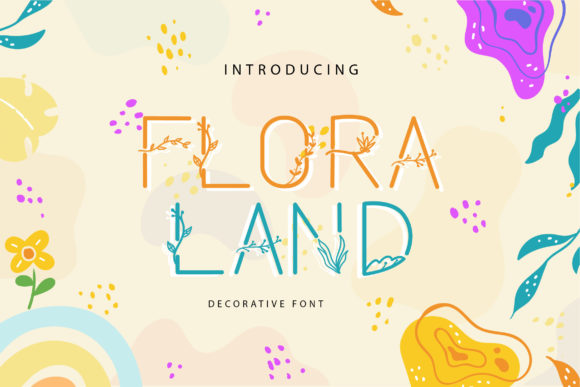
Feel the elegance and grace of Floraland Font, a decorative masterpiece that captivates with its slender lines and stylish flair. Born from the creative mind of Vunira, this thin lettered font is a visual symphony that dances across your designs, leaving a trail of beauty and sophistication.
As a decorative font, Floraland Font transcends the ordinary, becoming an artistic expression that elevates your designs to new heights. Its delicate strokes and flowing curves create a sense of harmony and balance, drawing the eye to your words and captivating your audience.
With Floraland Font, you hold the key to unlocking a world of creative possibilities. Its PUA encoding grants you effortless access to a treasure trove of glyphs and swashes, empowering you to unleash your imagination and craft designs that resonate with originality and style.
Imagine your headlines adorned with the allure of Floraland Font, each letter a stroke of genius that commands attention and leaves a lasting impression. Its thin lines dance across the canvas, creating a visual spectacle that draws your audience in and captivates their senses.
Floraland Font is more than just a collection of characters; it's an artistic journey that invites you to explore the depths of your creativity. Let your designs blossom with the elegance of Floraland Font, and witness the transformation as your words take on a life of their own, captivating hearts and minds alike.
Embark on this creative odyssey with Floraland Font, and discover a world where beauty and functionality entwine, where your designs transcend the ordinary and become masterpieces of art.